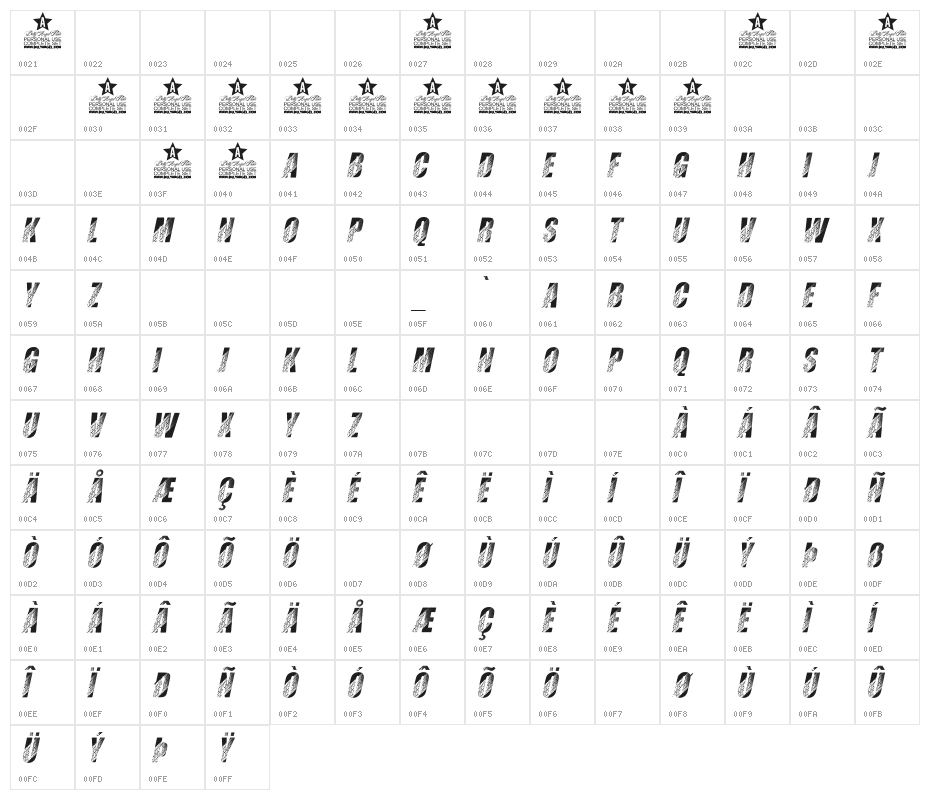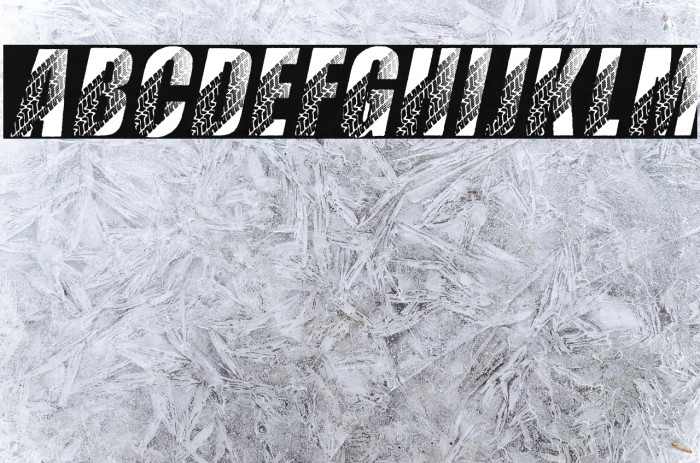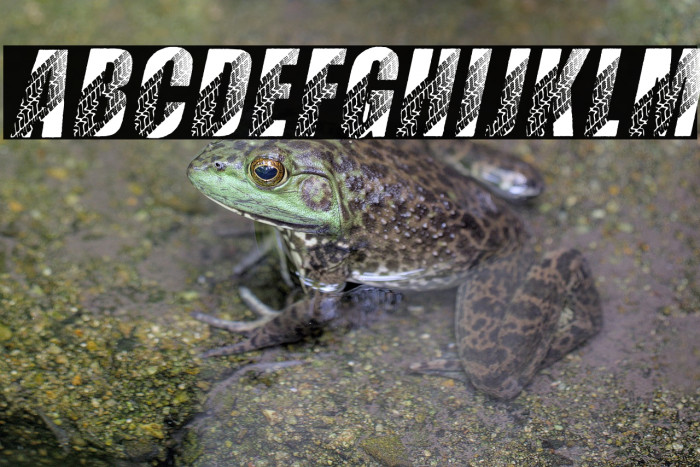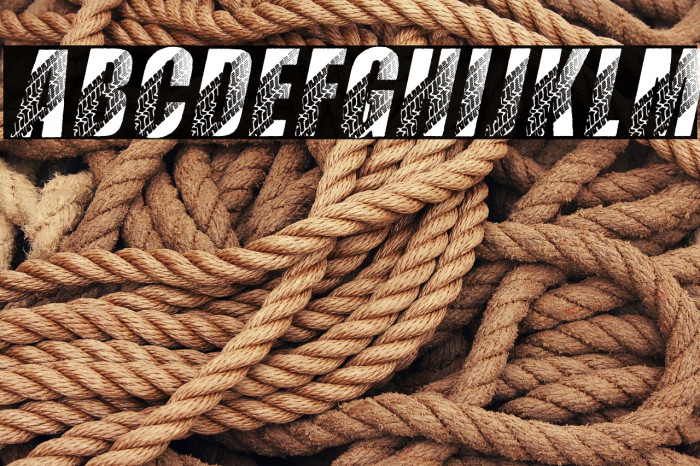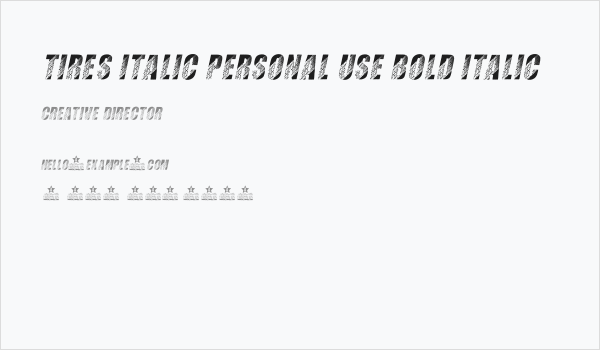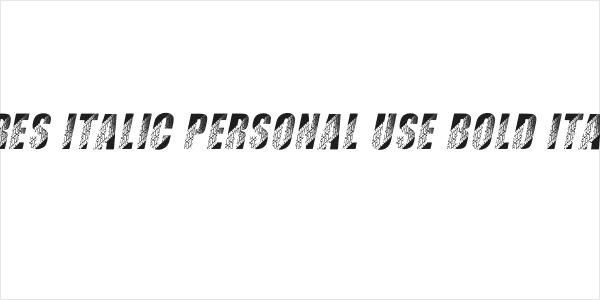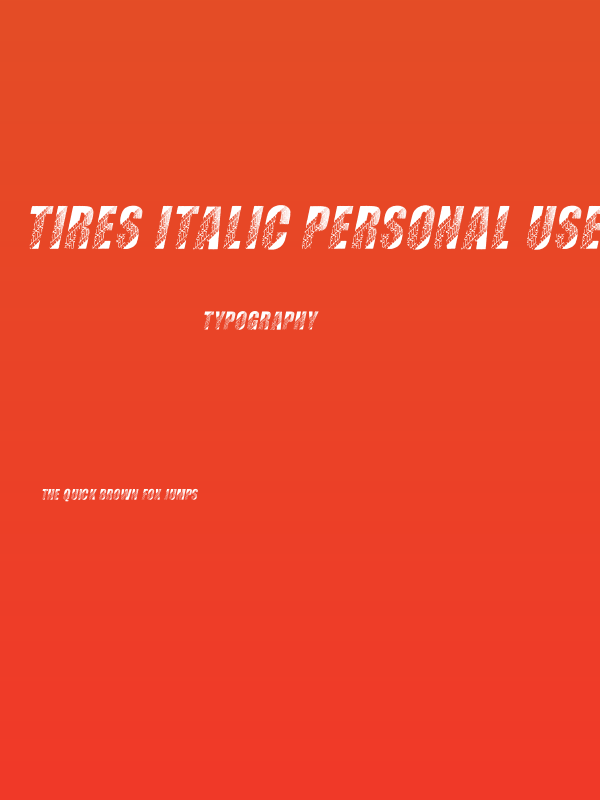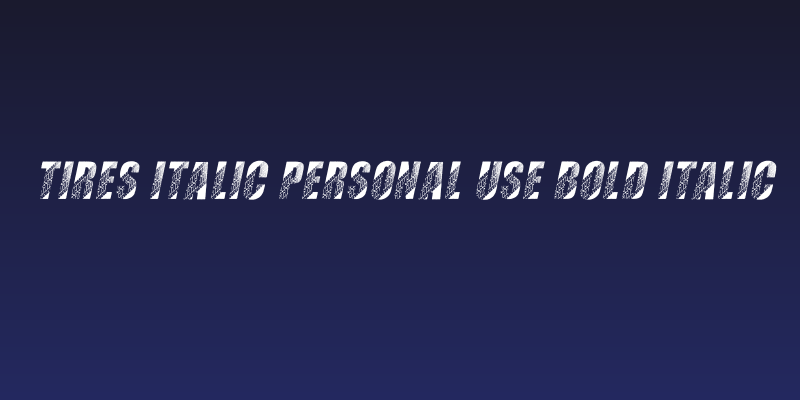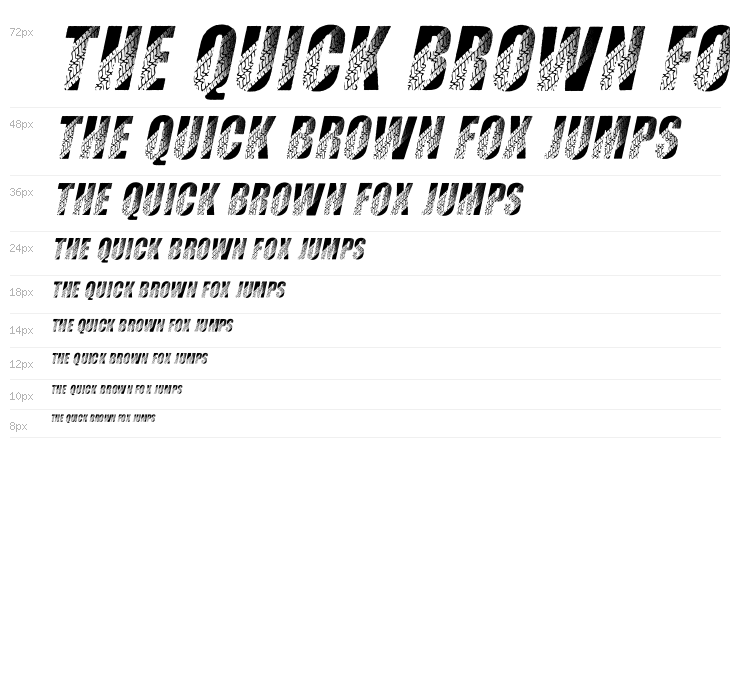
TIRES ITALIC PERSONAL USE Bold Italic Font
TIRES ITALIC PERSONAL USE Bold Italic Description
This font features a bold, italic style with a unique tire tread pattern embedded within each character. The design is dynamic and eye-catching, making it ideal for projects that require a strong and adventurous aesthetic. The uppercase letters are prominently styled, with a consistent slant that enhances the italic effect. The tire tread texture adds a rugged and industrial feel, suitable for automotive or sports-related themes. The font's bold weight ensures high visibility, while the italic angle provides a sense of motion and speed.
Overall StyleModern, Decorative
Proposed ProjectsPerfect for automotive branding, sports event posters, adventure-themed graphics, and dynamic logo designs.